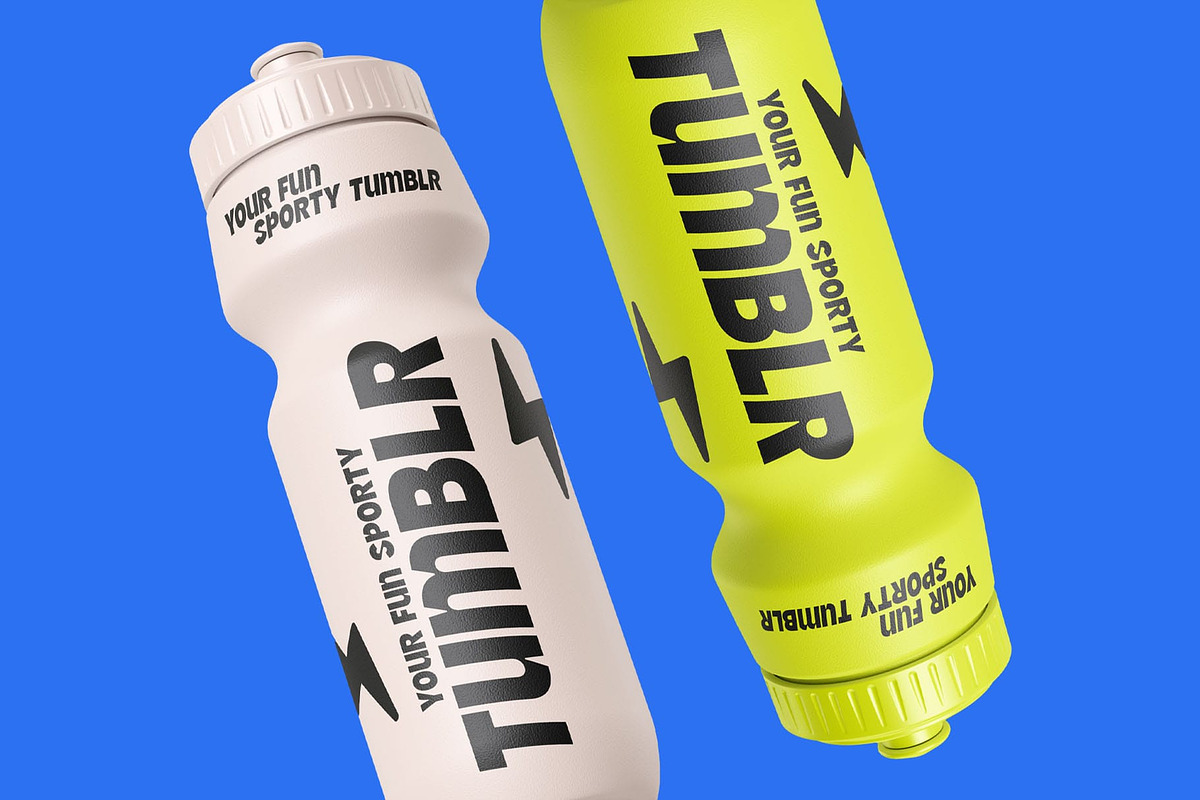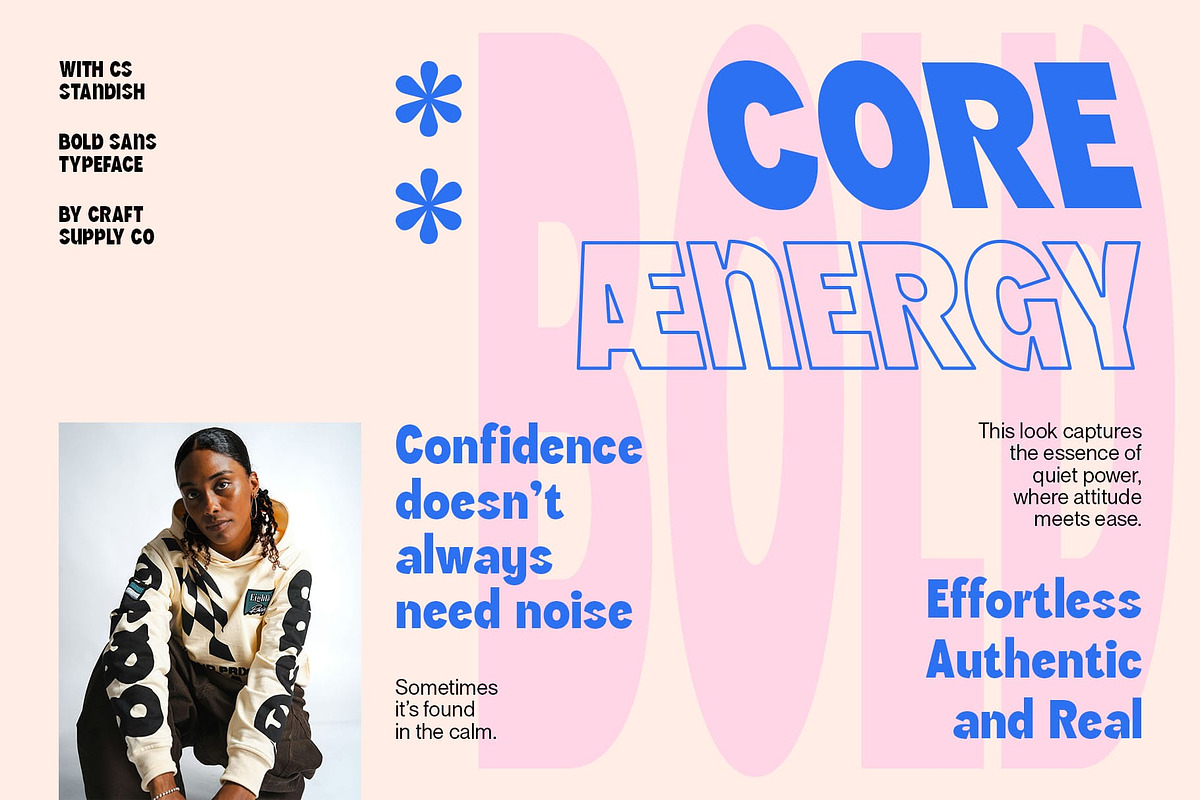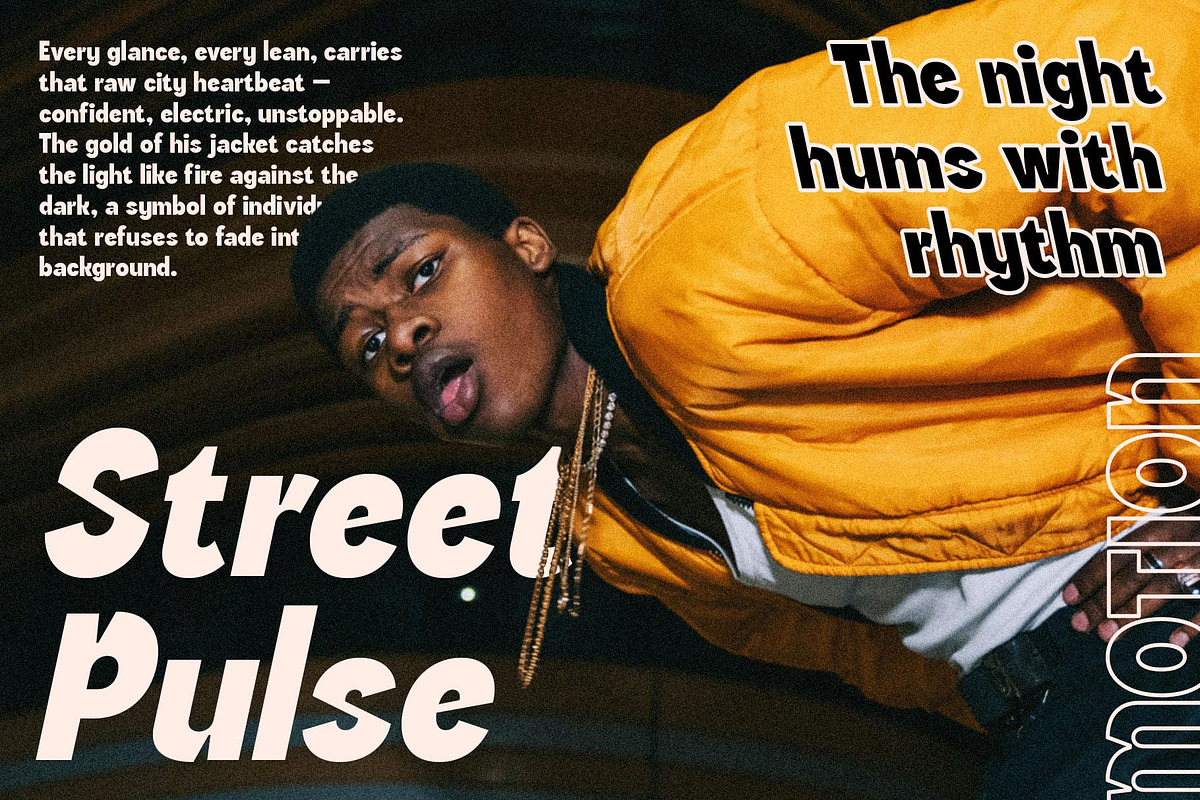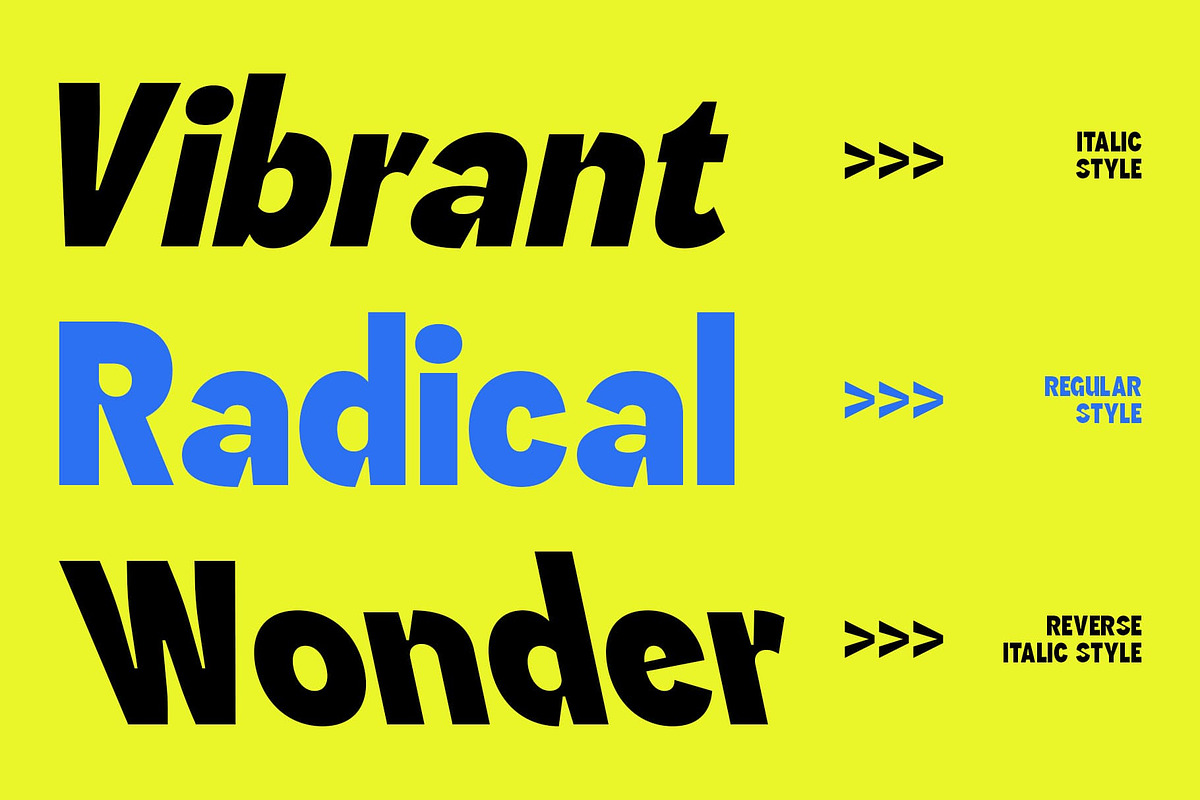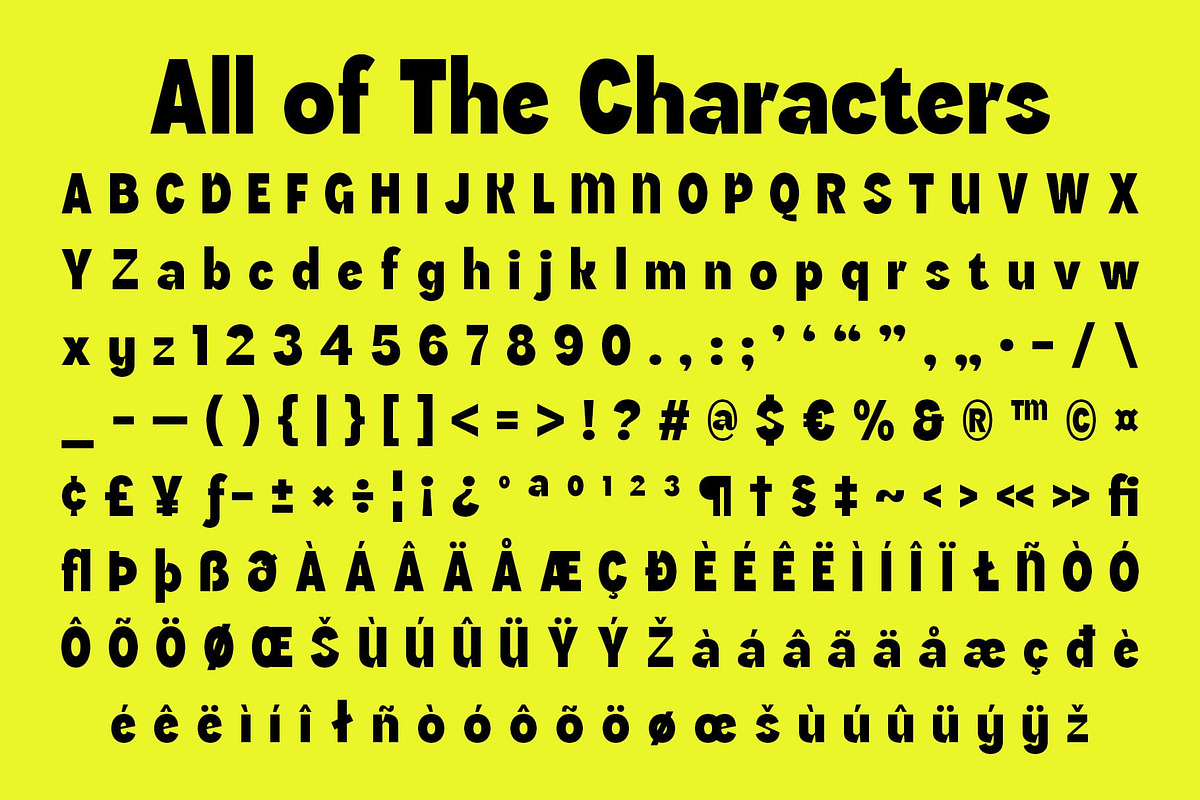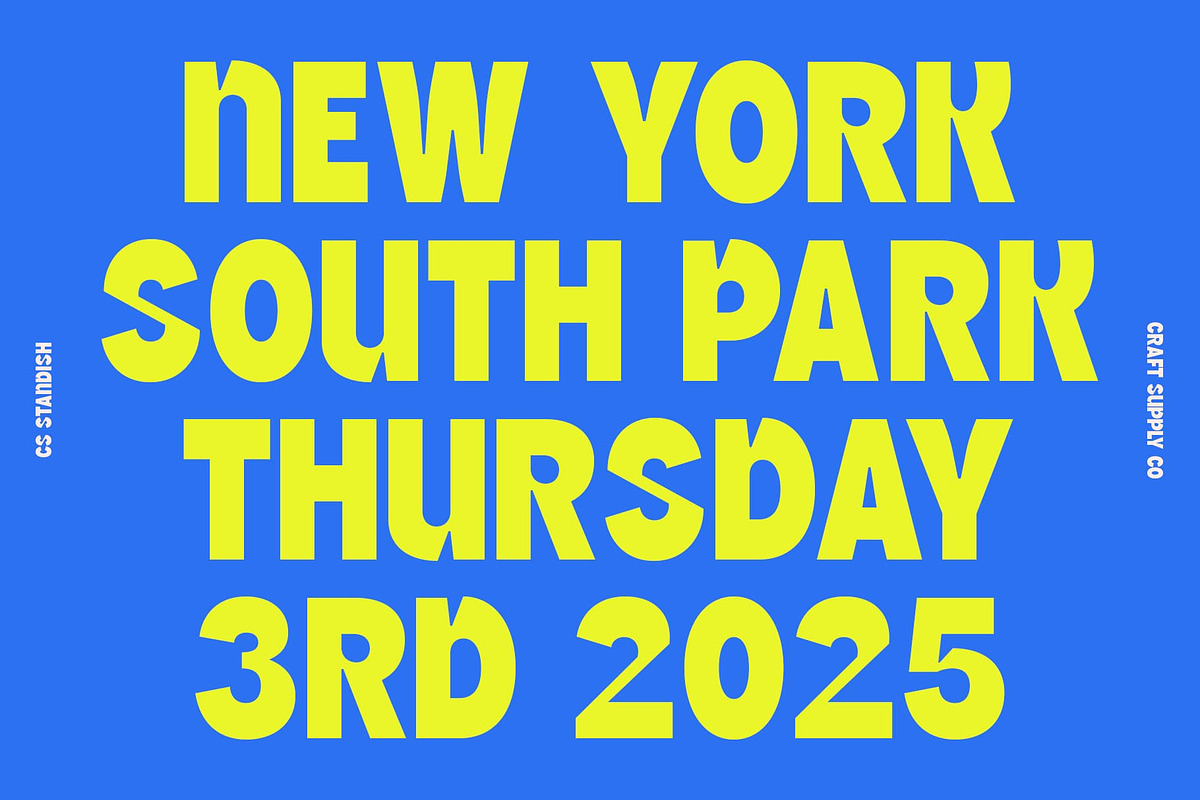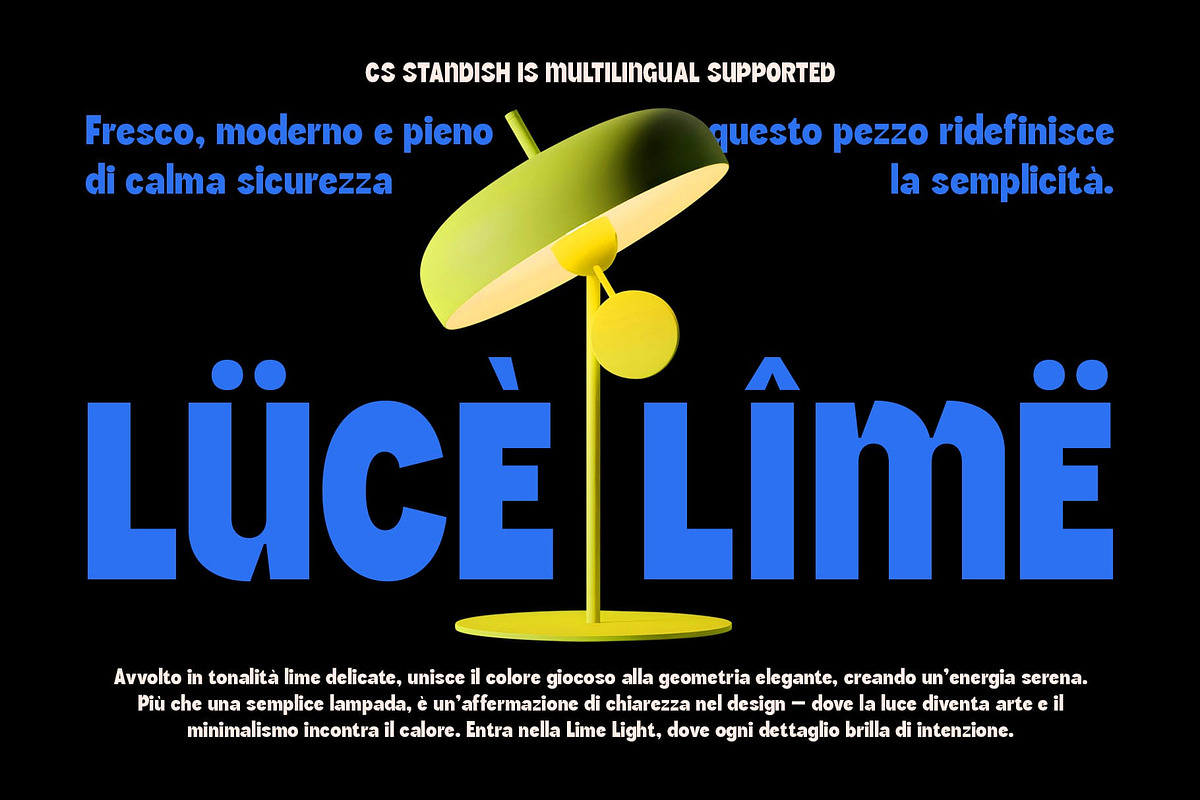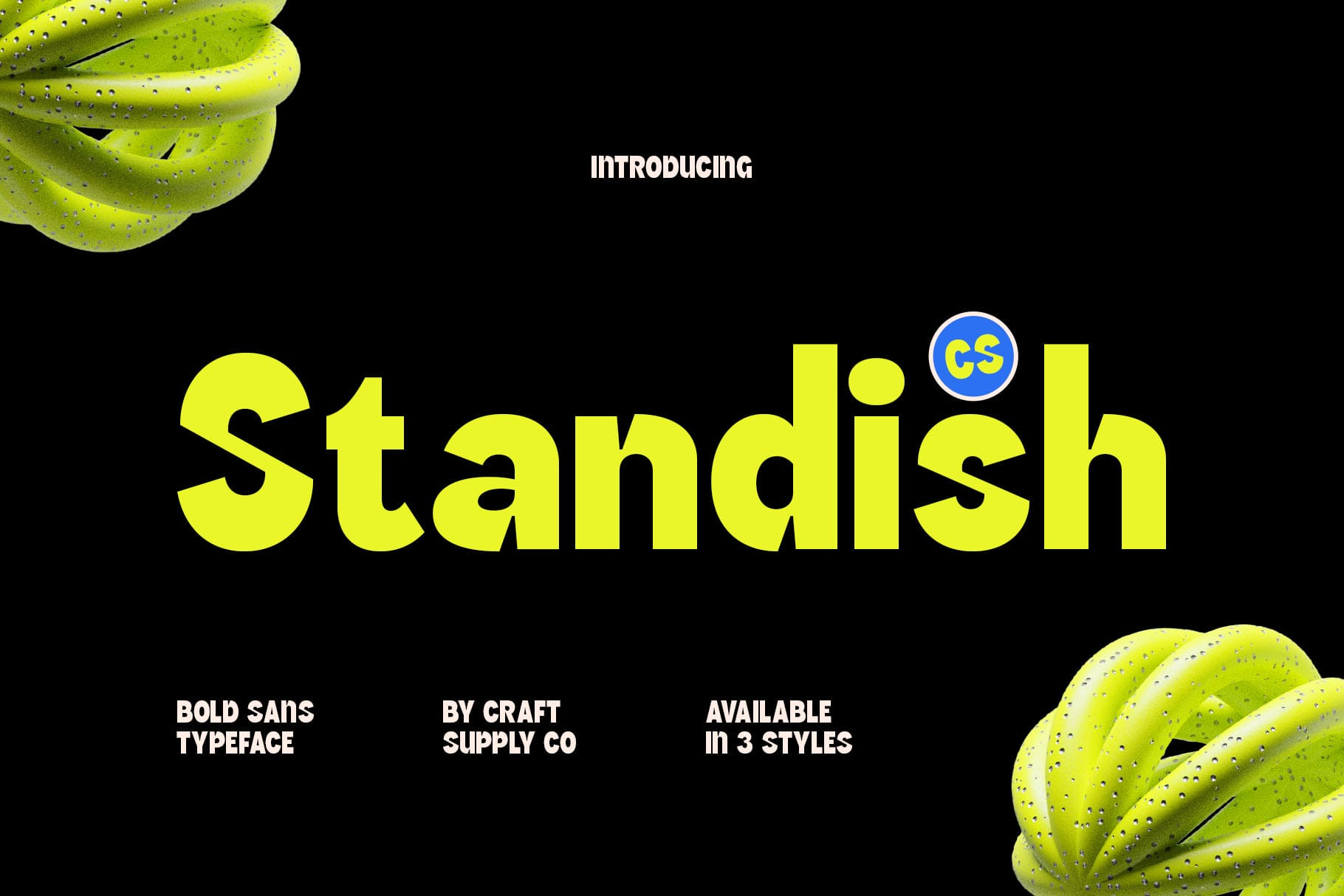
CS Standish – Bold Sans Font
CS Standish – Modern Simplicity with a Grotesque Edge
Bold Sans Serif with Contemporary Style This is a modern sans-serif font defined by bold, clean, and structured lines. Its contemporary design brings a sense of confidence and clarity to any layout, making it perfect for projects that demand both precision and personality. Every curve and stroke is crafted to create a visual balance between strength and simplicity.
Grotesque Influence for Character and Versatility Inspired by classic grotesque fonts, this font carries subtle humanist details that add warmth to its modern form. This blend of geometric precision and organic rhythm gives the typeface a distinctive, versatile character ideal for designers who appreciate functionality paired with style.
Clean Design for Maximum Impact The strong, even strokes and consistent spacing make this font a standout choice for bold typography. It communicates clearly while maintaining a refined, professional tone, ensuring that every word leaves a lasting impression.
Perfect for Modern Branding and Creative Use This font shines in logos, posters, branding, and editorial projects that call for a sleek, contemporary look. Its modern sans-serif construction and grotesque-inspired personality make it adaptable across various design aesthetics whether you’re building a cutting-edge brand or crafting minimalist visual statements.